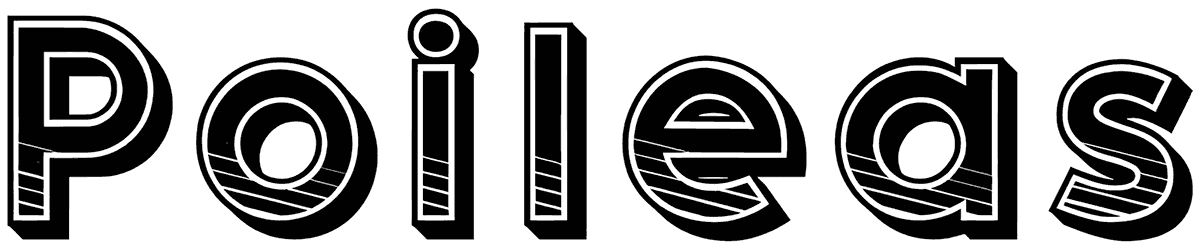
Poileas Font
The effect of light rays on Poileas looks like the paint has been splashed on it and has a wet look. This inline font, as well as the strips of light surrounding the letters, creates an appealing glow that can be applied to your ideas.
If you are looking for a fancy font that will quickly lead you to your goal of designing posters, computer games, and music albums, this shadow font is the best way to reach your destination.